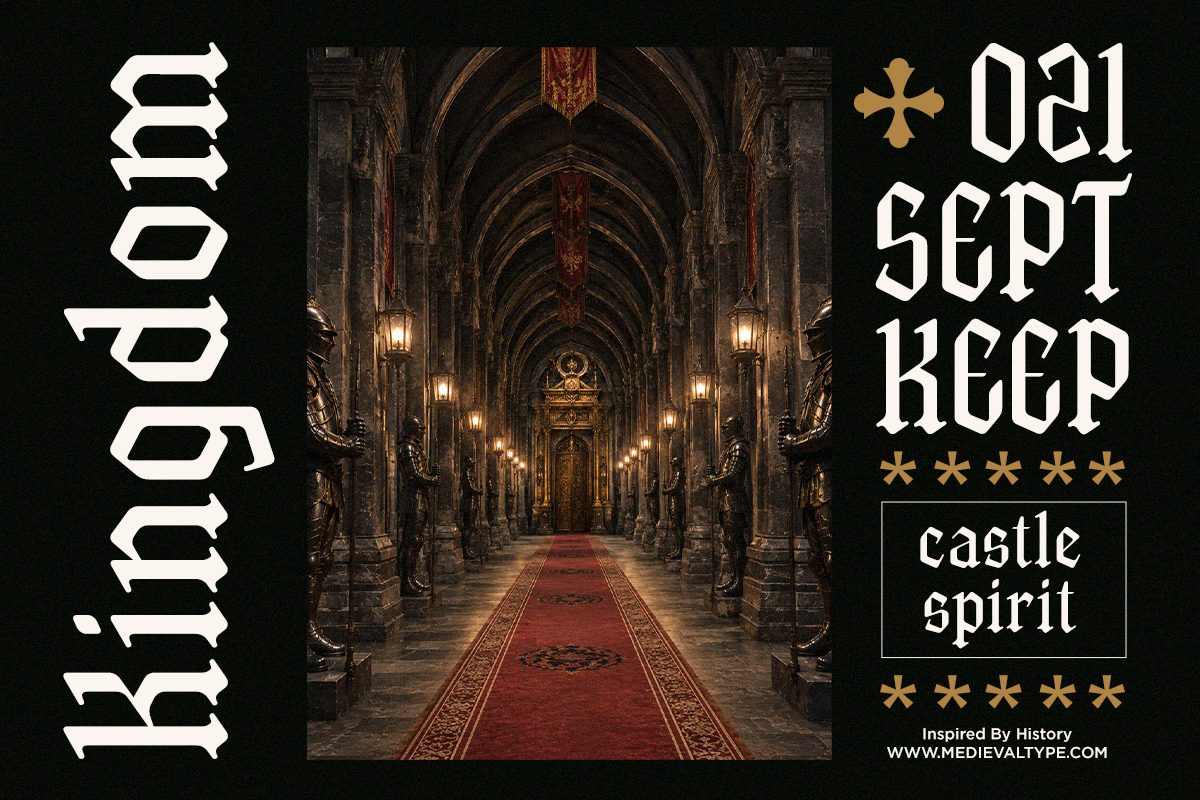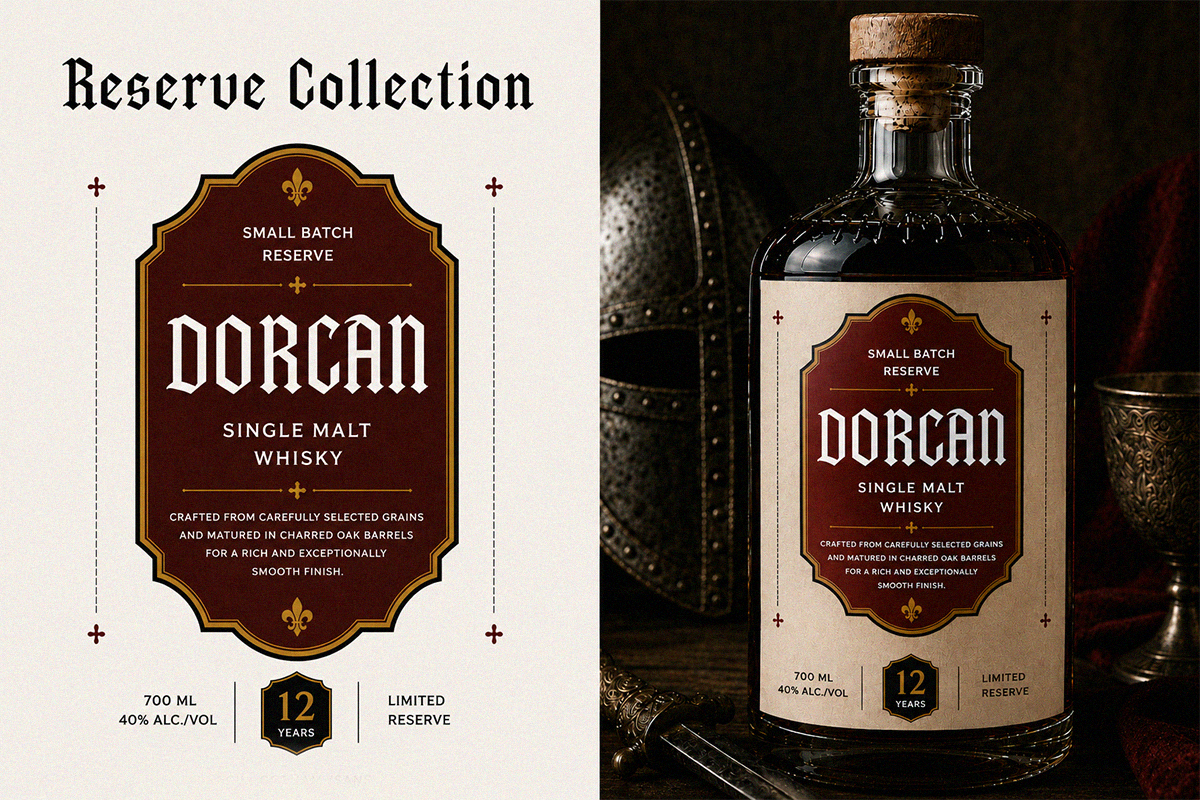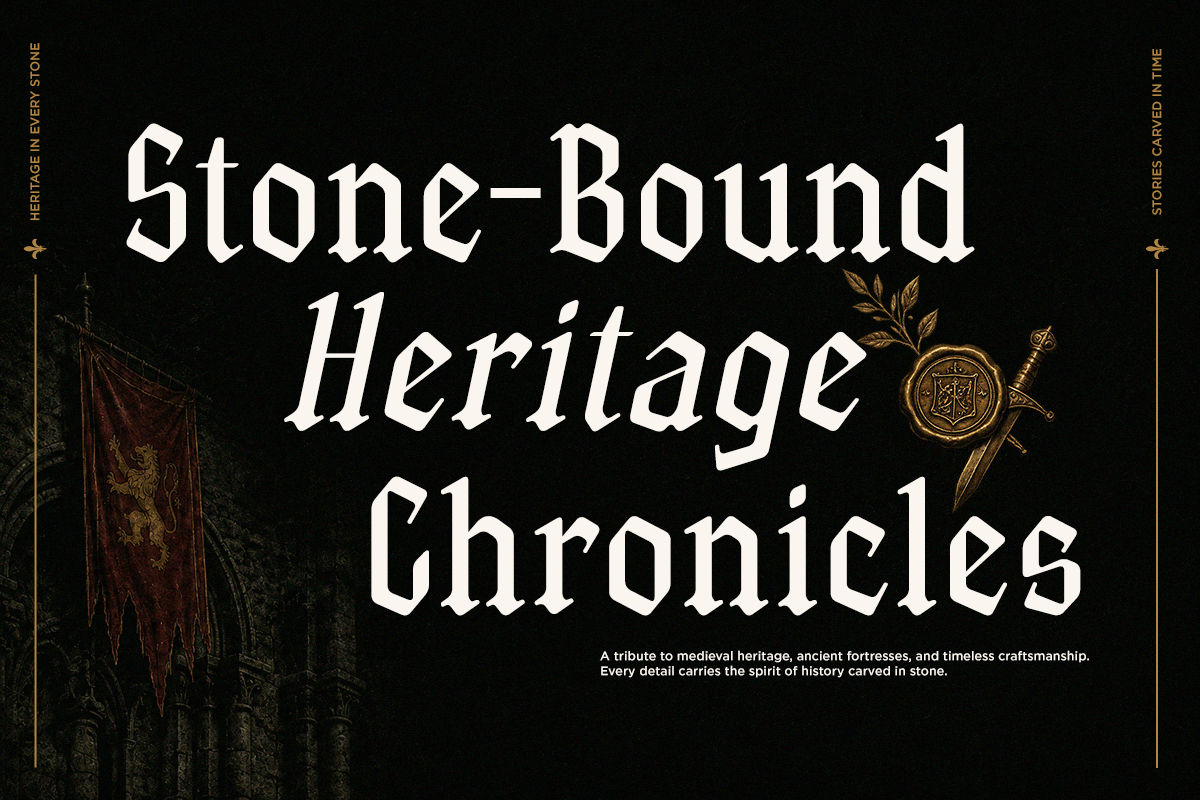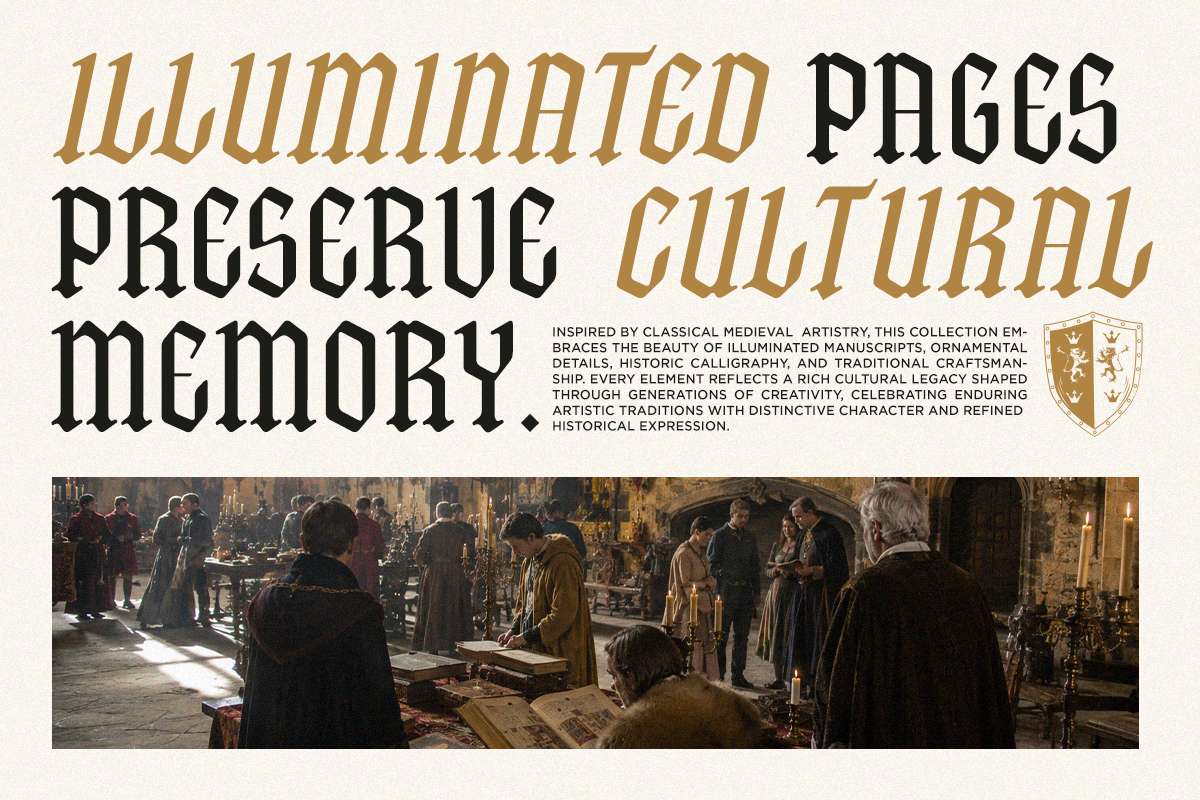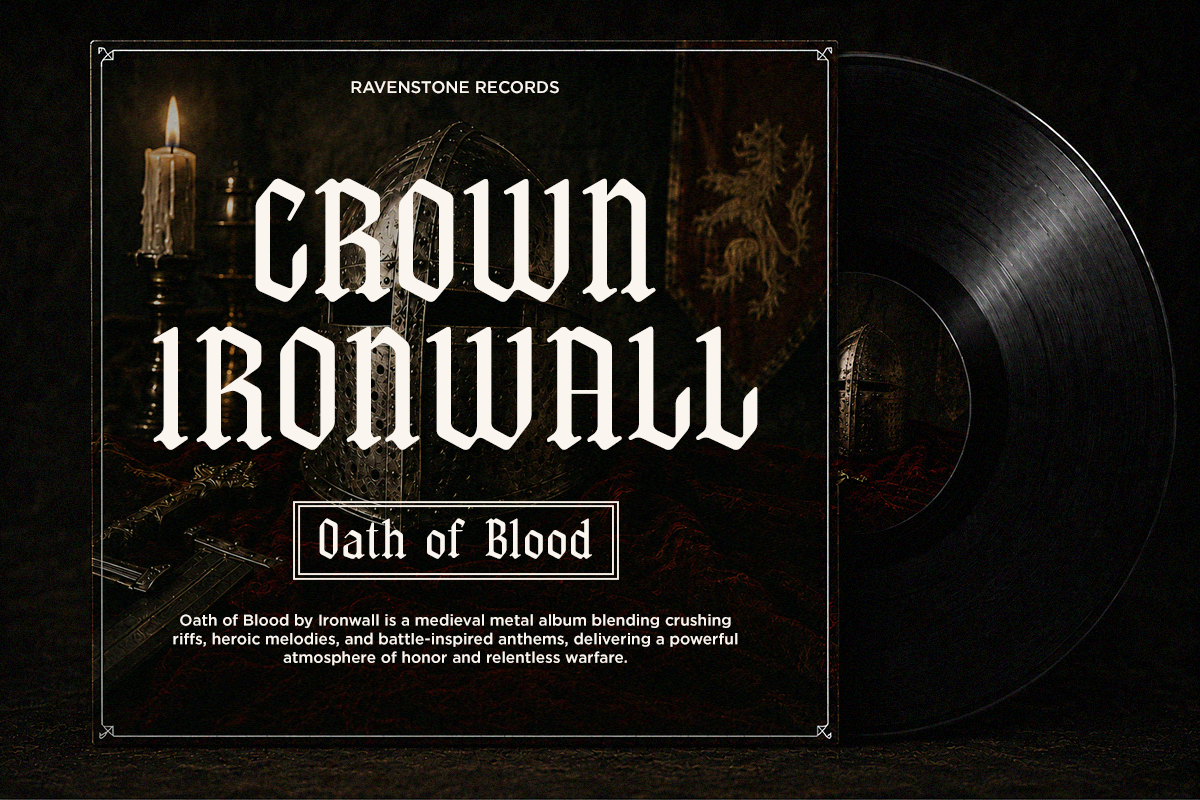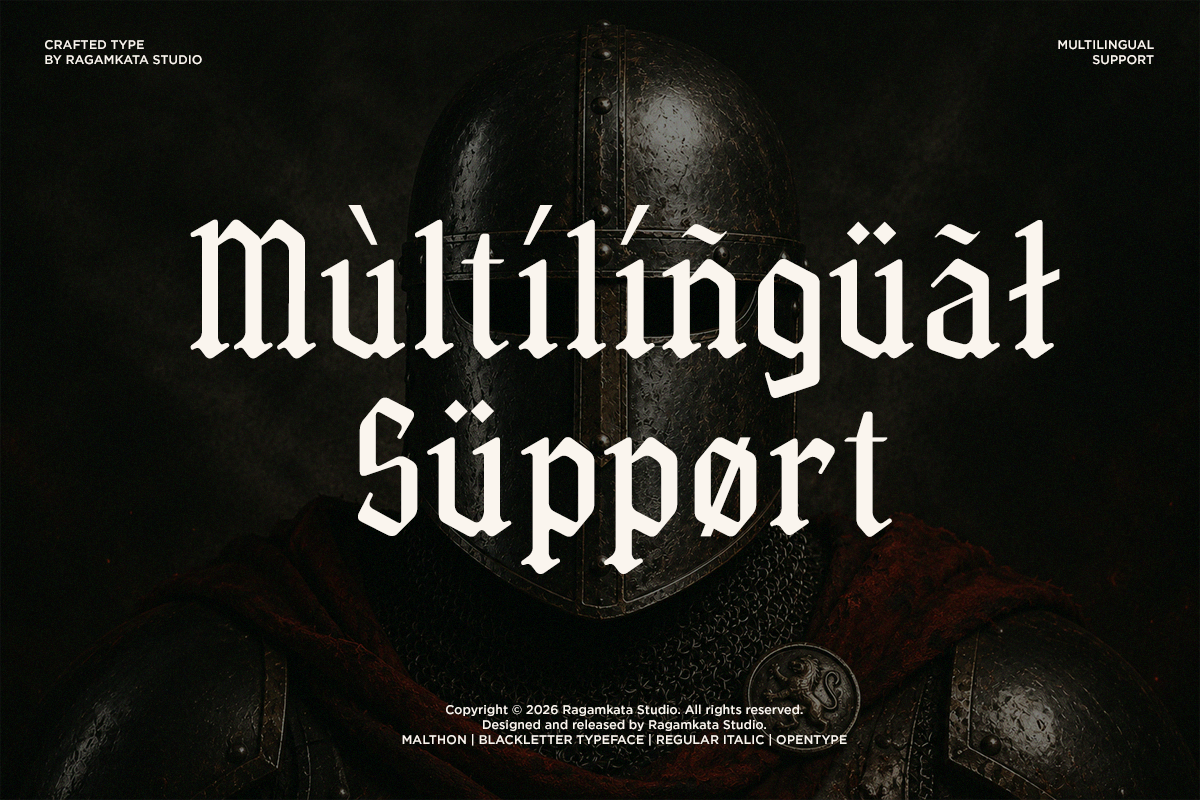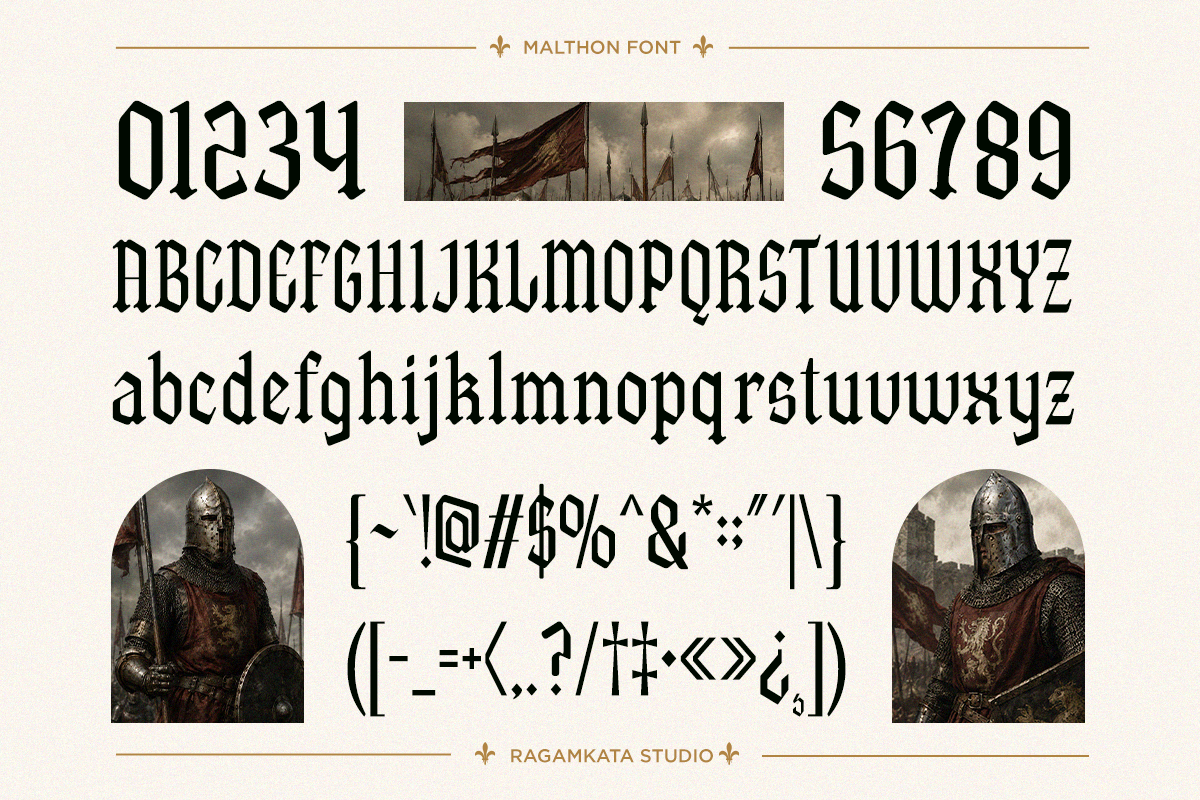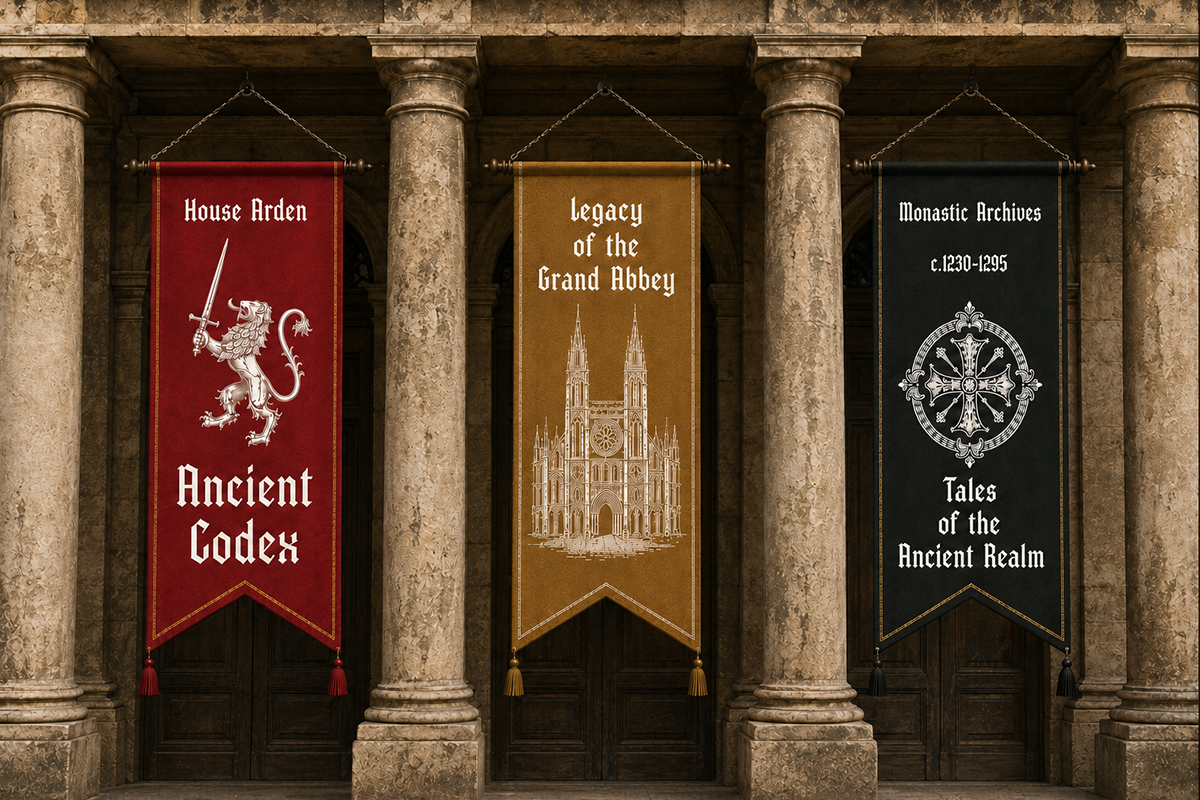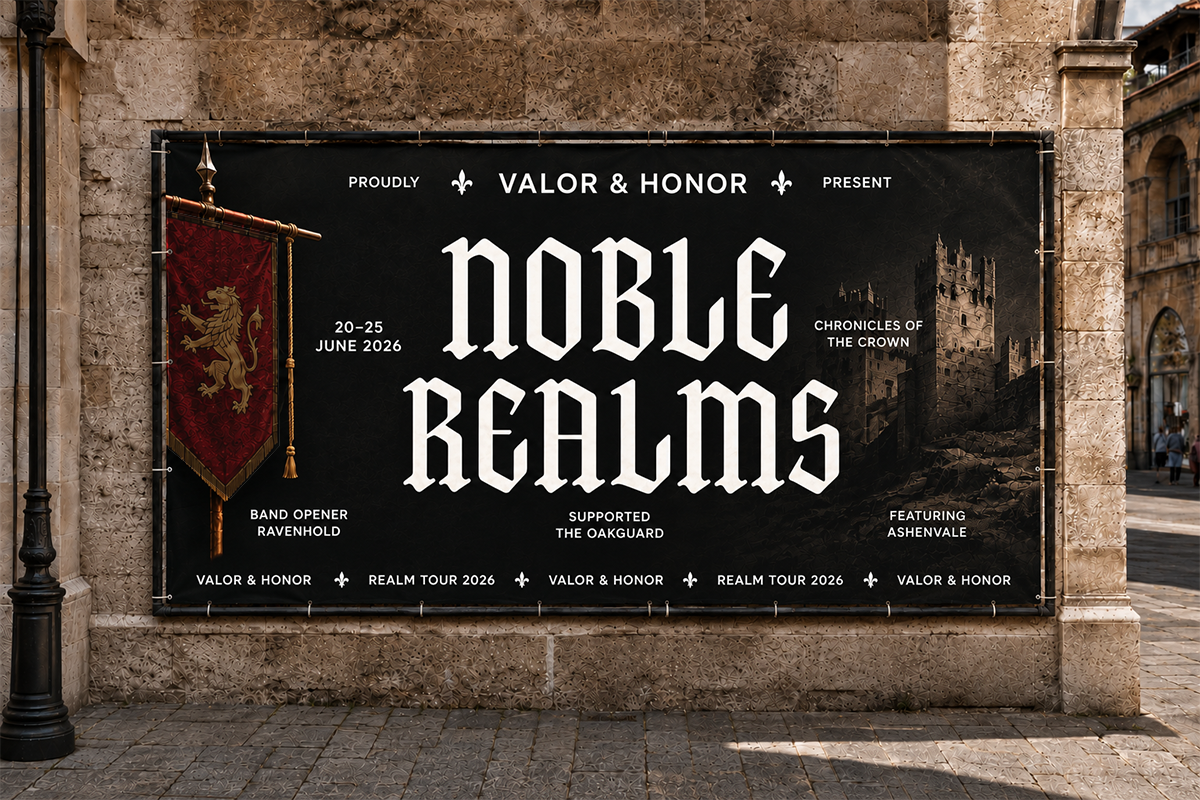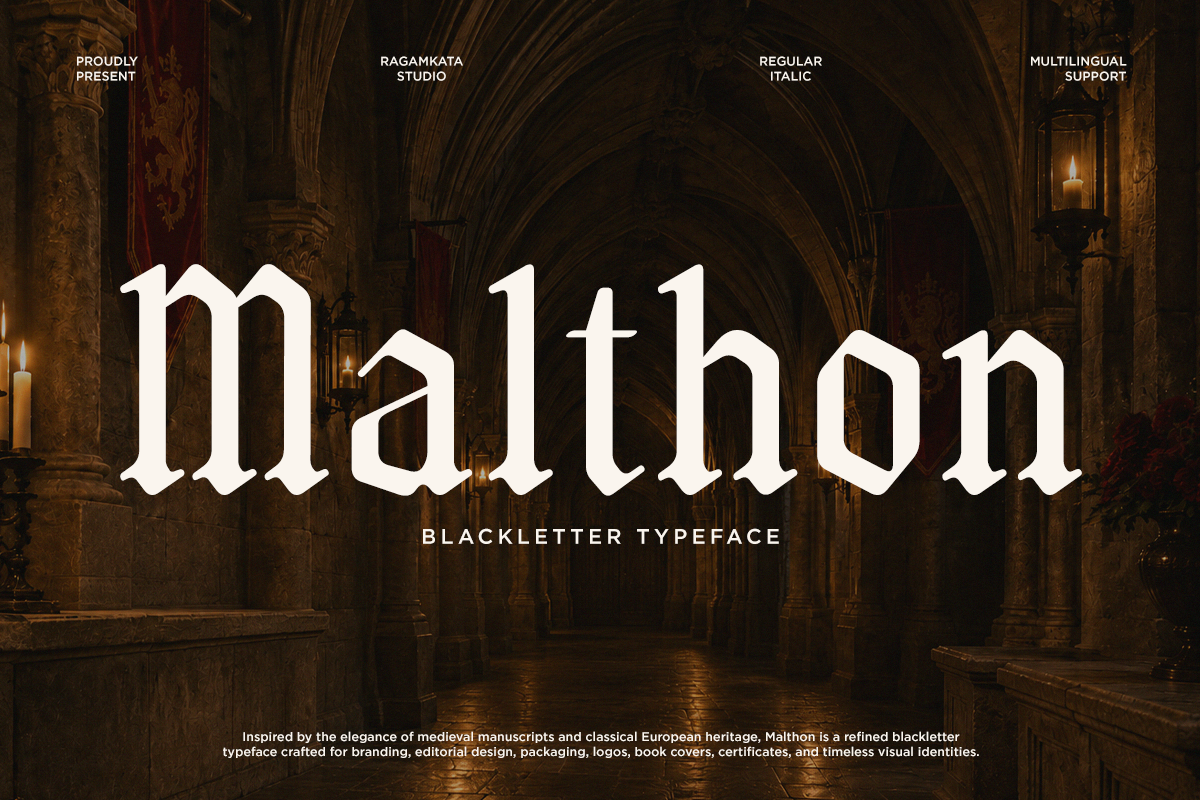
Malthon - Medieval Blackletter Font
Malthon is a bold medieval blackletter font inspired by ancient manuscripts, royal insignias, historic architecture, and traditional European typography. Its sharp, dramatic letterforms bring a powerful heritage aesthetic to modern visual identities.
Designed for strong visual impact, Malthon is perfect for whisky and spirits branding, beer labels, medieval logos, gothic posters, vintage packaging, tattoo artwork, apparel, album covers, gaming graphics, fantasy titles, editorial layouts, and luxury heritage projects.
With its distinctive blackletter personality, Malthon combines an authentic historical atmosphere with a refined contemporary edge. Use it for headlines, logos, badges, labels, posters, and display typography whenever you want a bold and unforgettable medieval statement.
Regular and Italic
Number, Symbol, and Punctuation